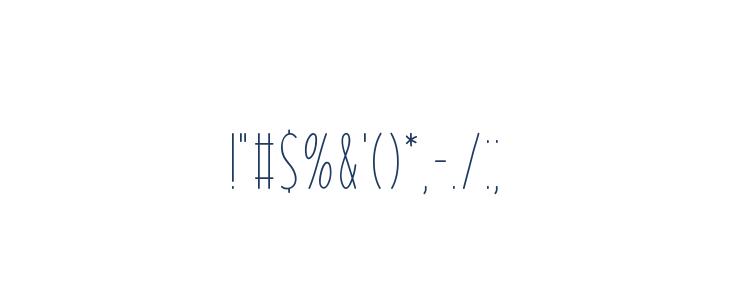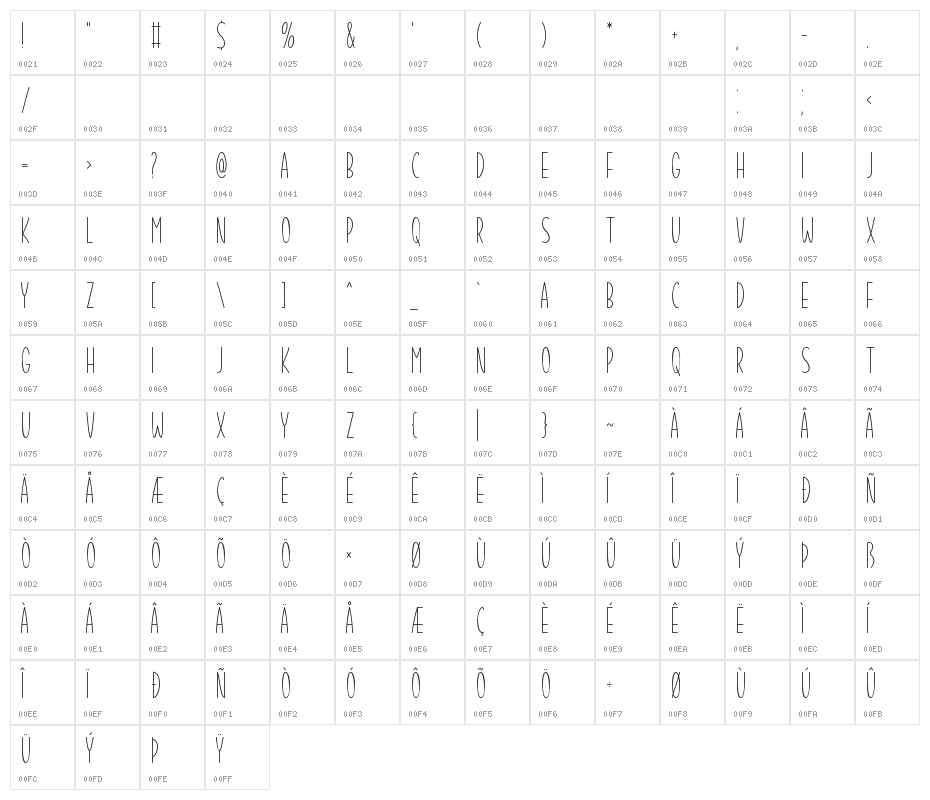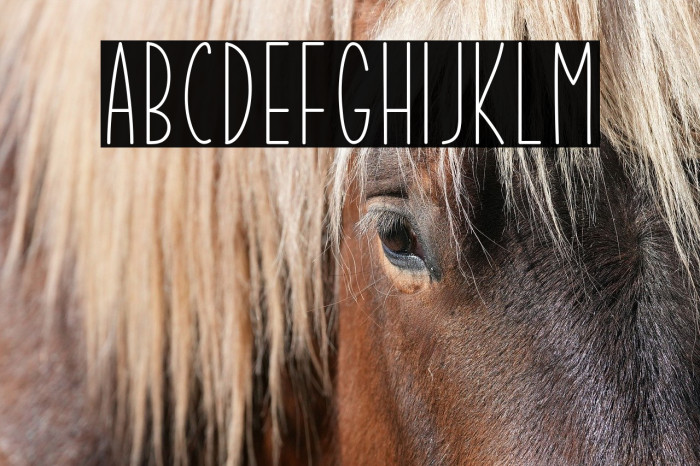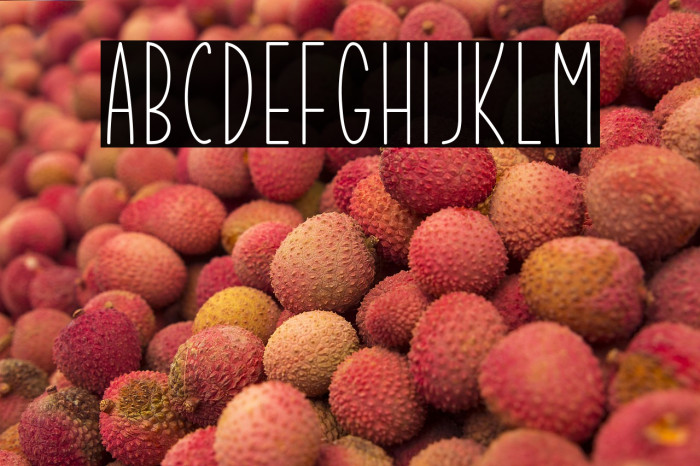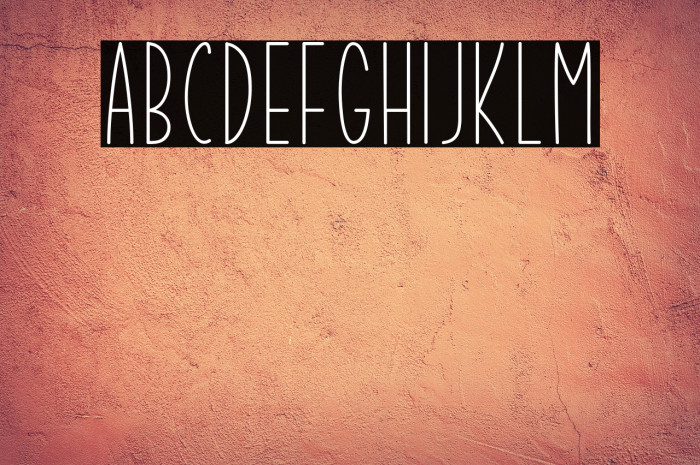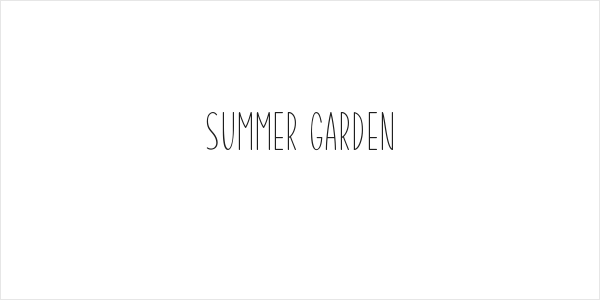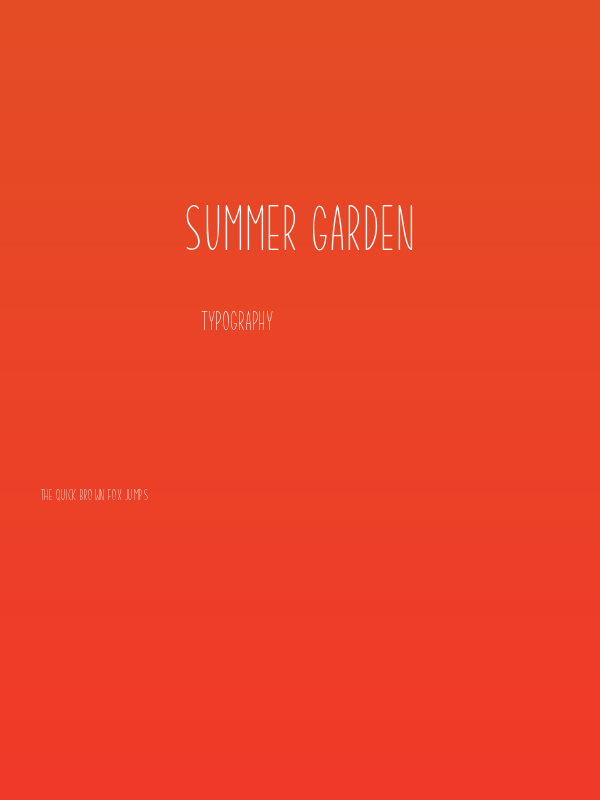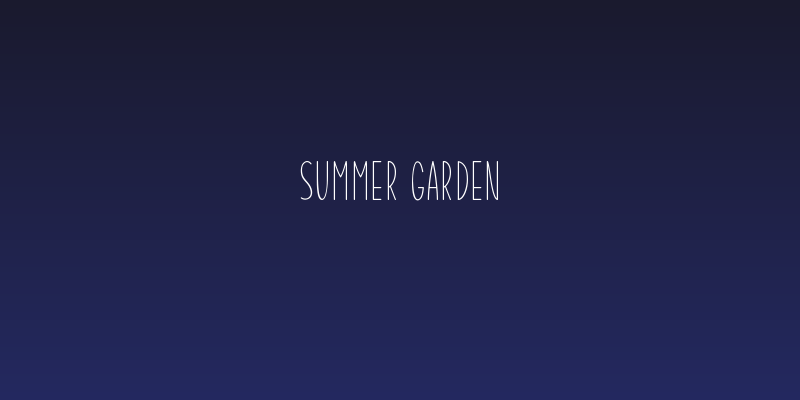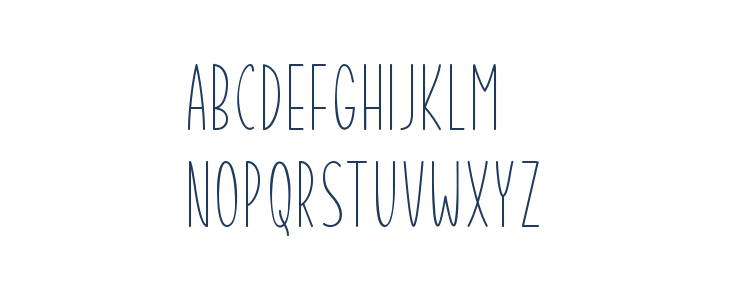
Summer Garden Font
Summer Garden Description
This font features a tall and narrow design with clean, straight lines and minimal curves, giving it a modern and elegant appearance. The characters are evenly spaced, contributing to a balanced and harmonious look. The uppercase and lowercase letters maintain a consistent height, enhancing readability. The font includes a full set of uppercase and lowercase letters, numbers, and a variety of special characters, making it versatile for different design needs. Its simplicity and clarity make it suitable for both digital and print media.
| Proposed Projects | Ideal for wedding invitations, minimalist branding, fashion magazines, and modern website headers. |